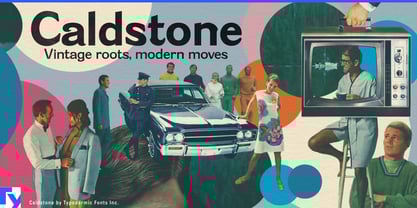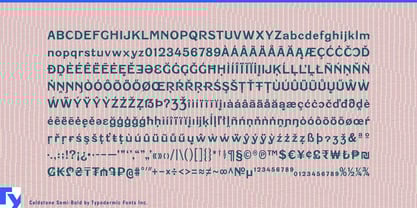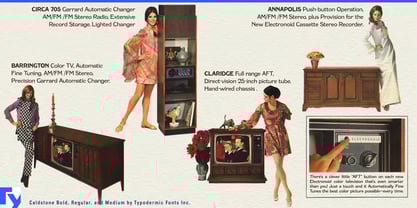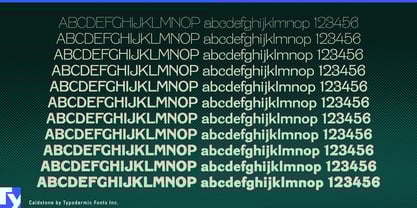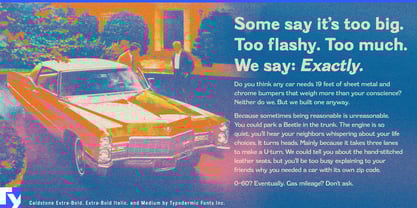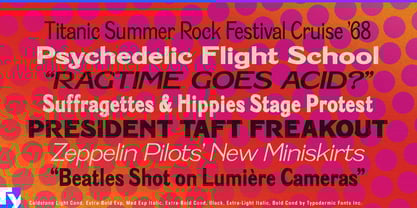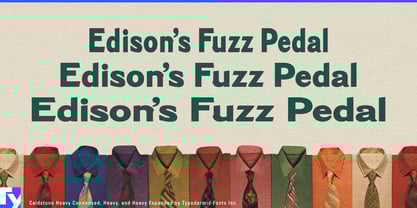
Caldstone
Decorative lettering often creates a system problem. One ornate display face can make a memorable product name, but the moment the job needs a narrow label, a lighter secondary heading, a menu section or another level of emphasis, the designer has to start mixing unrelated fonts. Caldstone takes a different approach: curls, spurs and eccentric details are carried through a large sans-serif family rather than confined to a single novelty style.
Its character draws on the late-1960s revival of earlier decorative lettering, when Edwardian forms were rediscovered and exaggerated through psychedelic graphics. The result can feel antique and pop at the same time. Unusual terminals and ornamental interruptions sit on a recognizably sans-serif framework, giving Caldstone plenty of personality without locking the designer into one period costume.
Food and drink are natural territory. Confectionery, ice cream, specialty chocolate, preserves, aperitifs, cocktail mixers, bakery products and colorful pantry goods can use Caldstone for product names, flavor lines, seasonal editions and promotional graphics. Its ornament suggests pleasure and abundance without drifting into formal luxury or rustic heritage clichés.
Restaurants and hospitality give the family even more room to work. Cocktail bars, neighborhood wine bars, retro cafés, bakeries, boutique hotels and destination restaurants need typography for venue names, menus, wine lists, room cards, event graphics and window lettering. Expanded styles can establish a broad name over the door; Condensed styles fit narrow drinks columns and vertical signs; lighter weights handle menu headings and short supporting copy.
Cosmetics and personal-care products open another strong territory. Fragrance collections, soaps, bath products, skincare ranges and boutique beauty brands often need warmth and ornament without the severity of conventional luxury typography. Caldstone can move from a prominent product name to scent names, categories, gift sets and seasonal campaigns while keeping the same decorative vocabulary intact.
Fashion can use the family with a more graphic emphasis. Patterned clothing, resort wear, eyewear, accessories and vintage-inspired boutiques suit Caldstone’s combination of old decorative gestures and late-1960s exuberance. Condensed styles fit garment tags and narrow layouts; Expanded styles can turn a short collection name into a broad piece of display typography.
Caldstone spans three widths and eleven weights from Hairline to Black, each with a matching italic. That range changes the character of the ornament as much as the darkness: Hairline Expanded can feel airy and delicate, while heavier Condensed styles become compact and emphatic without losing the same curls, spurs and irregular details.
Caldstone is useful when decoration has to survive beyond the hero word. It can name the perfume, distinguish the scent, headline the menu, label the chocolate box, mark the hotel room card and fill the shop window while keeping one eccentric visual language intact.